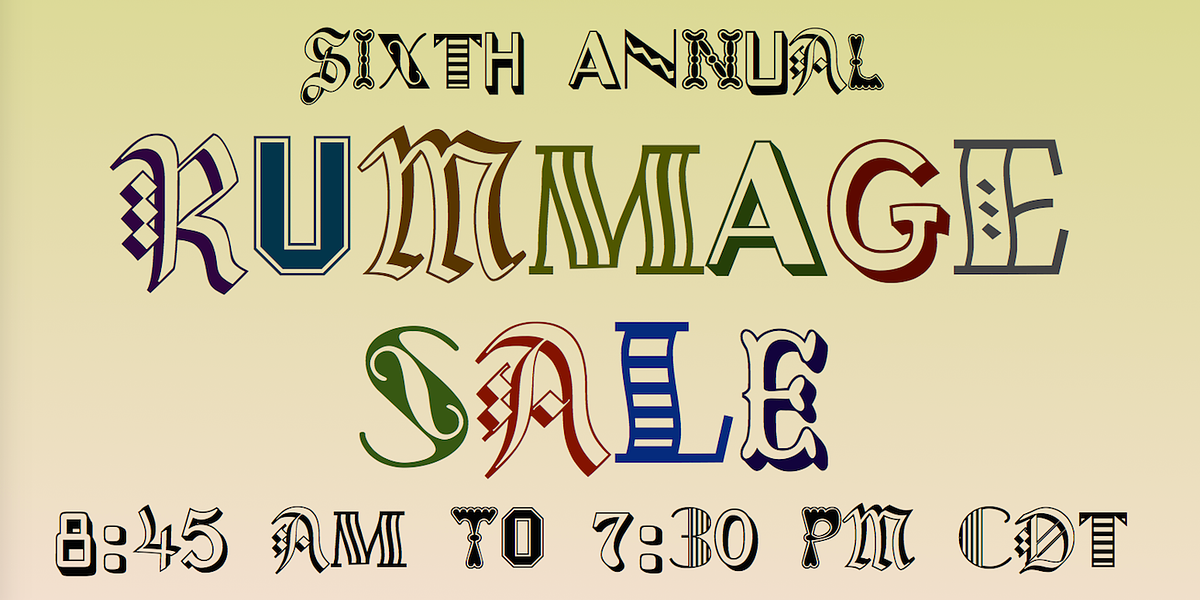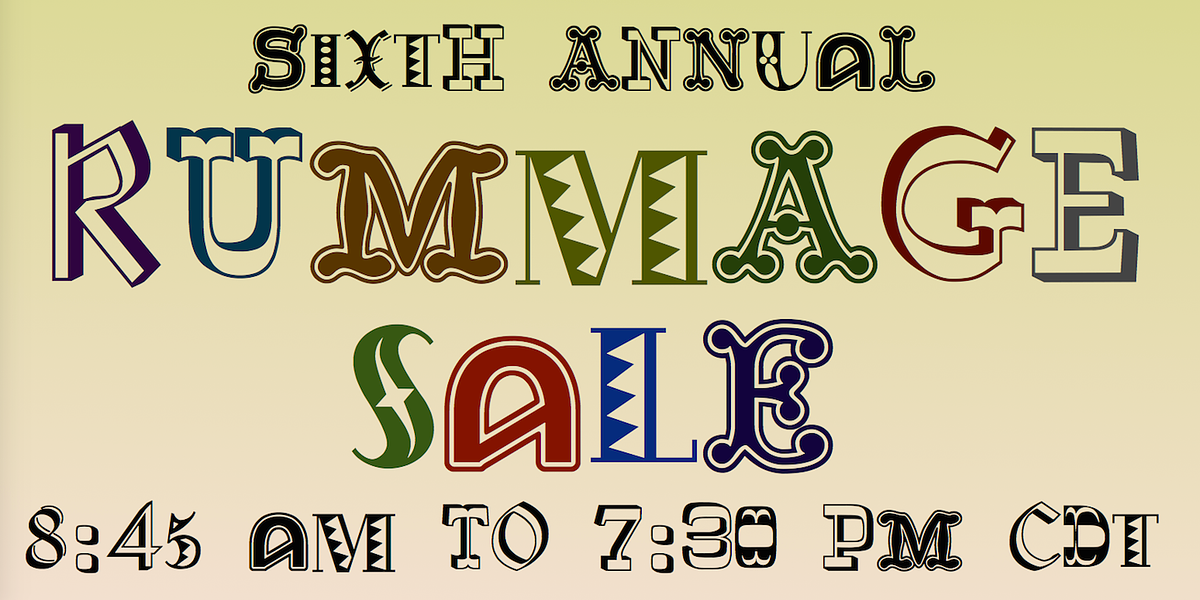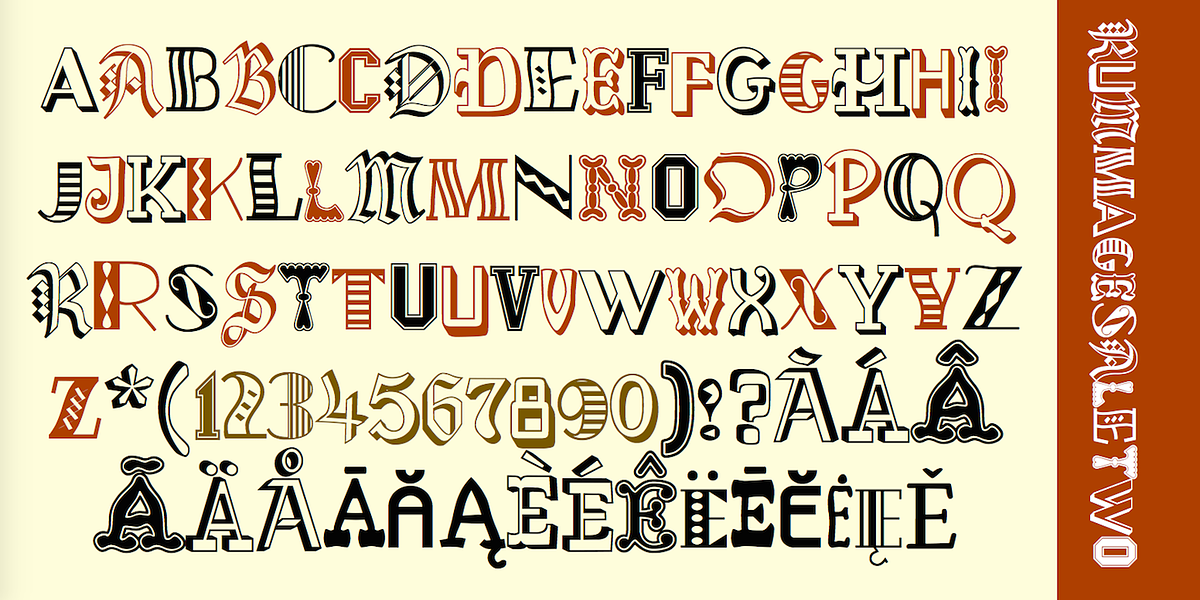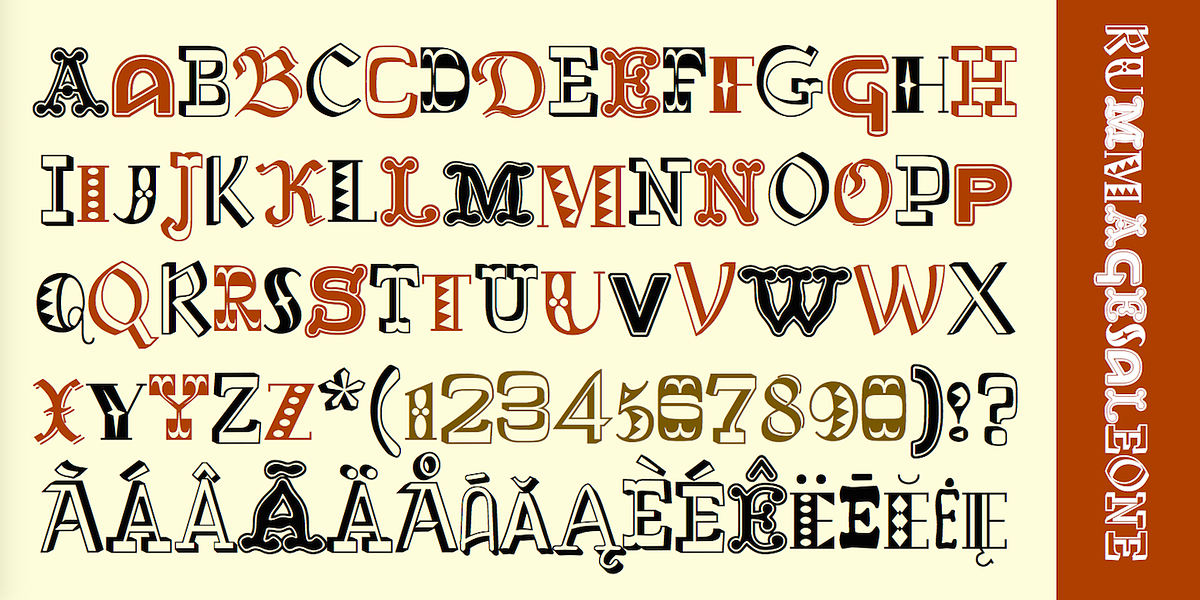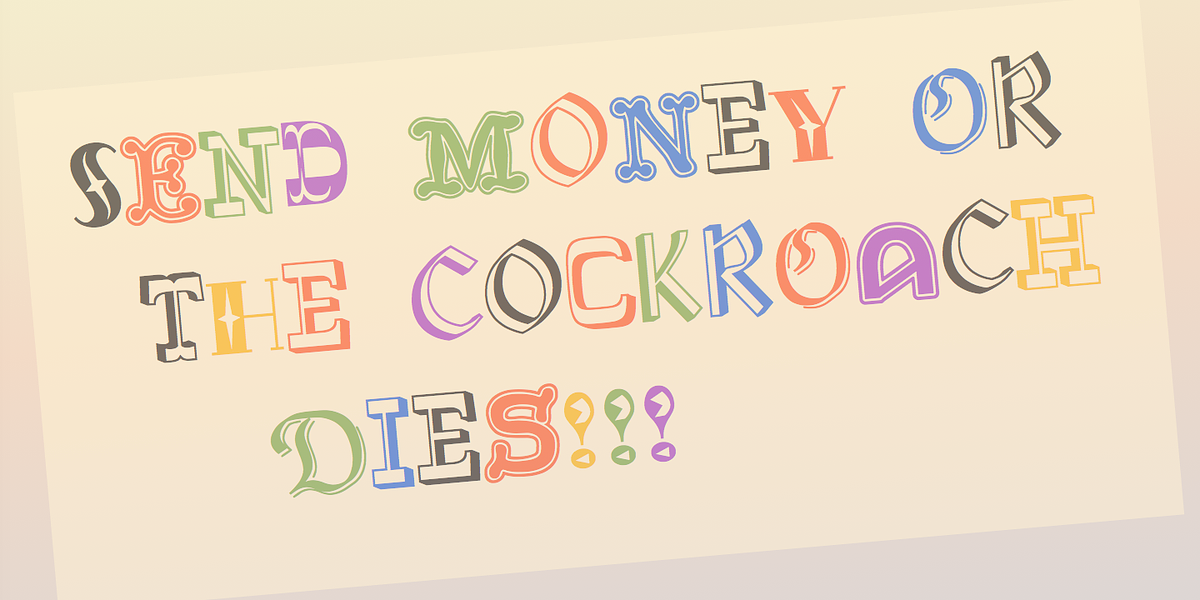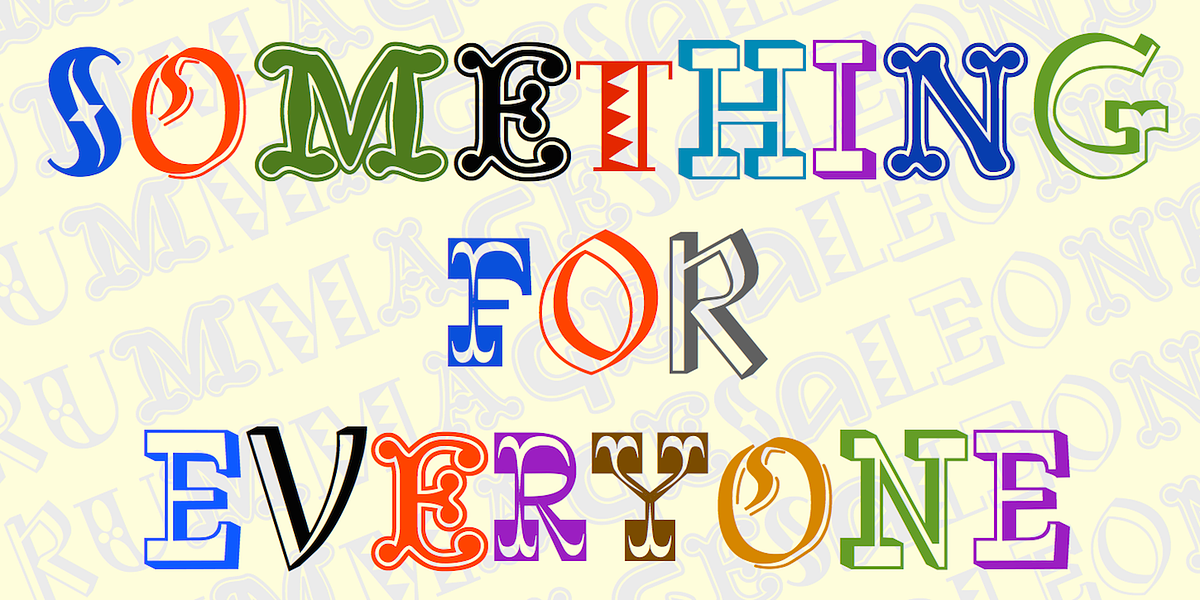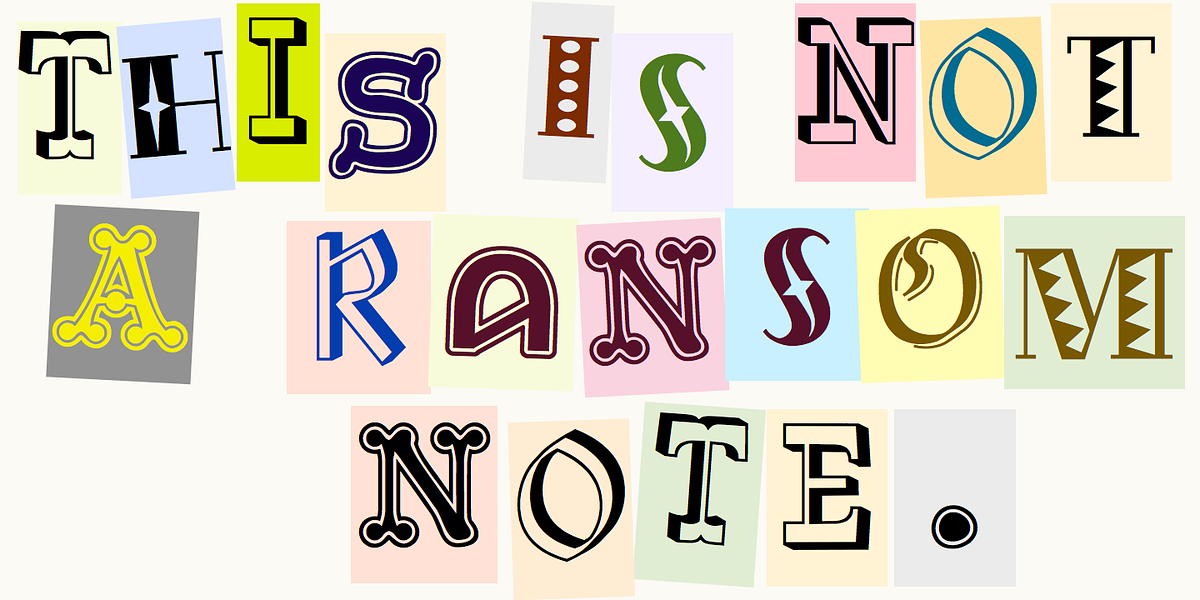
Rummage Sale
This display font originated from a combination of ornate letters found in other fonts. It features an all-caps design with whimsical and uneven letterforms, lending a playful and nostalgic feel.